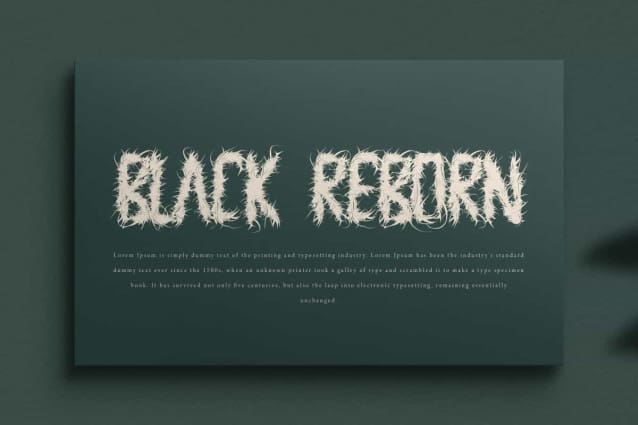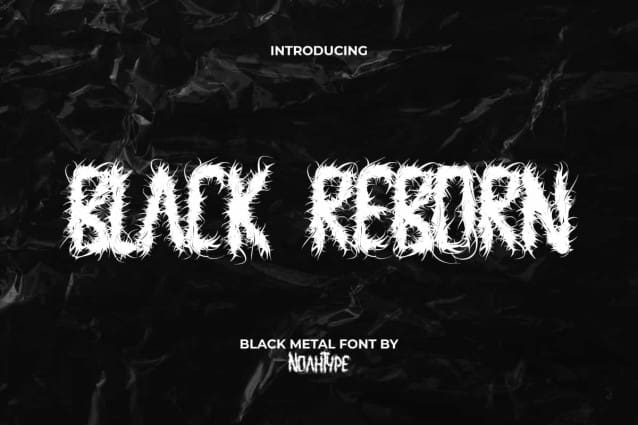
Black Reborn Font
Black Reborn Font is a black metal hard rock scary display font. This font is made with a black metal theme to support the appearance of your design to be terrify. It will be perfect for any designs, such as brand image, cover, custom design, invitation, label, marketing material, menu, poster, product packaging, quote, signage, stationery, web, and many more!
Black Reborn Font includes complete set of ALL CAPS for Uppercase and Lowercase Basic Characters in different sizes, Numerals, Punctuation, and Symbol. The characters of this font will give incredible looks and also a perfect choice for many industries, such as accessories, advertising, art, café, event or festival, fashion, game, movie, photography, printing, publishing, sport, etc.